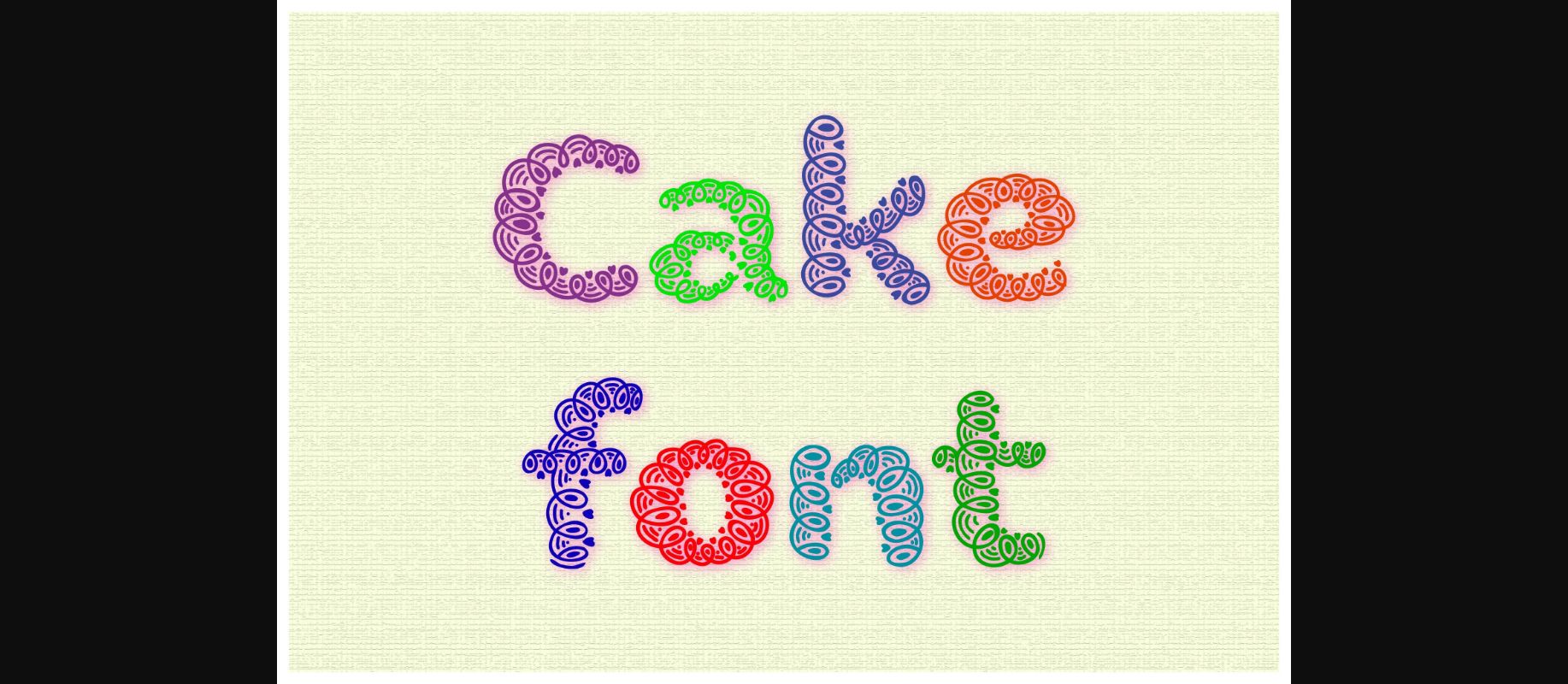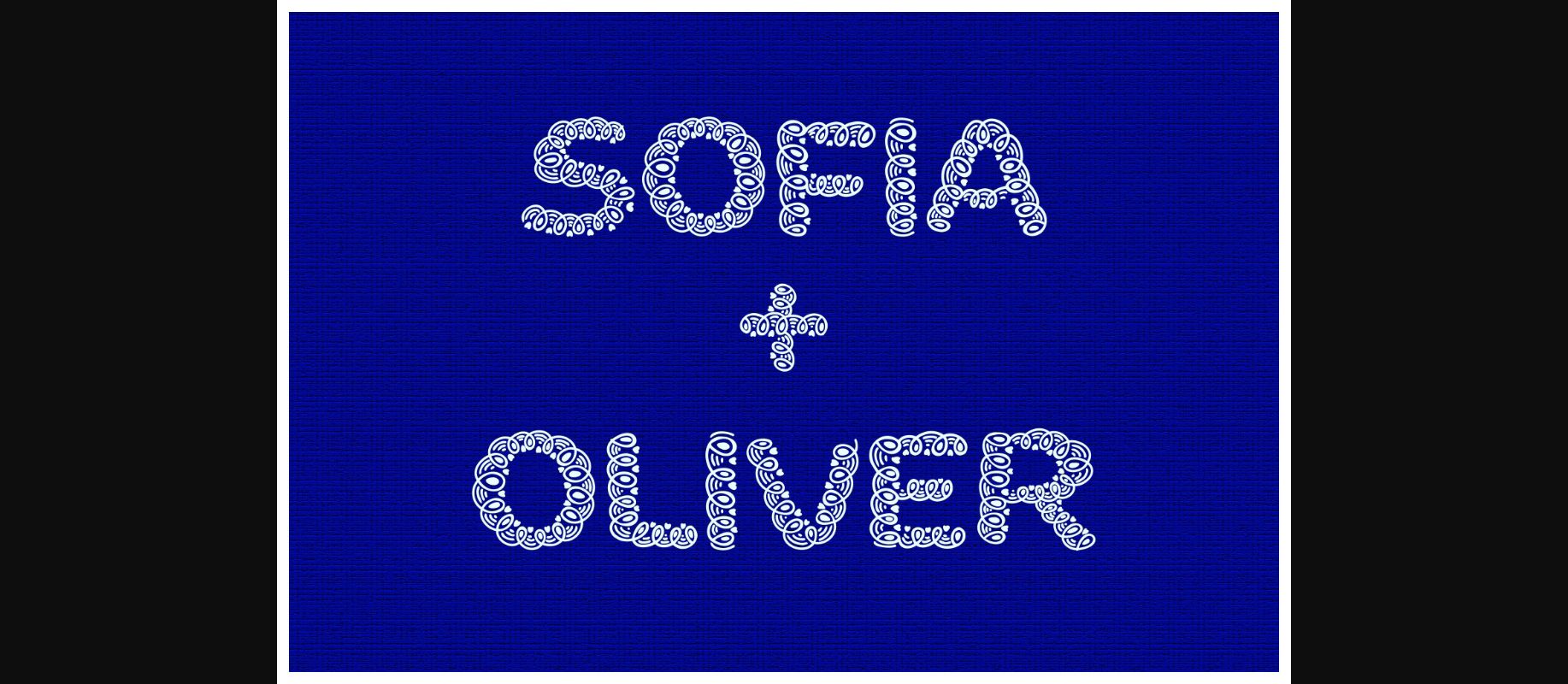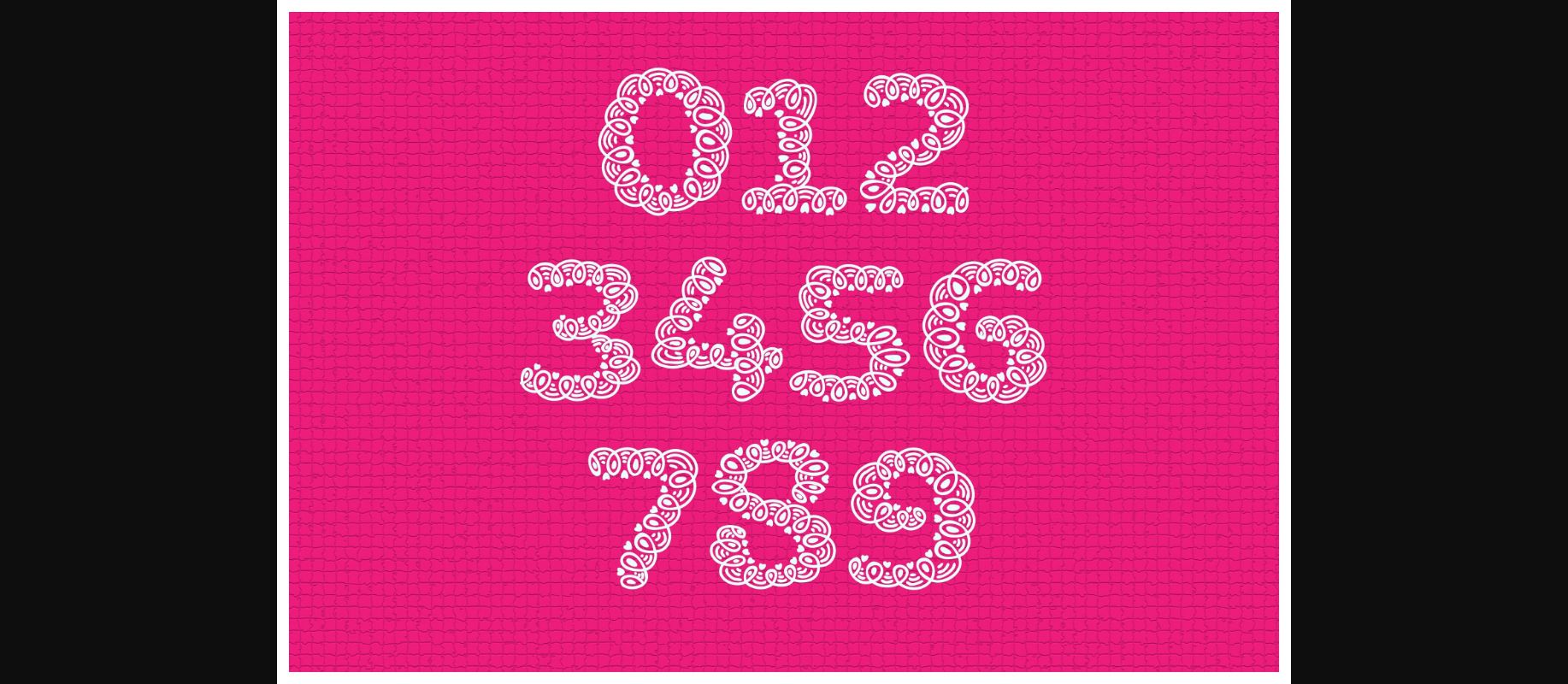
Cake Font
About Cake Font
Cake is an incredibly unique and fun decorative font. Add it to each of your party invitation, gathering or pretty much any design that requires a touch of youth and joy.